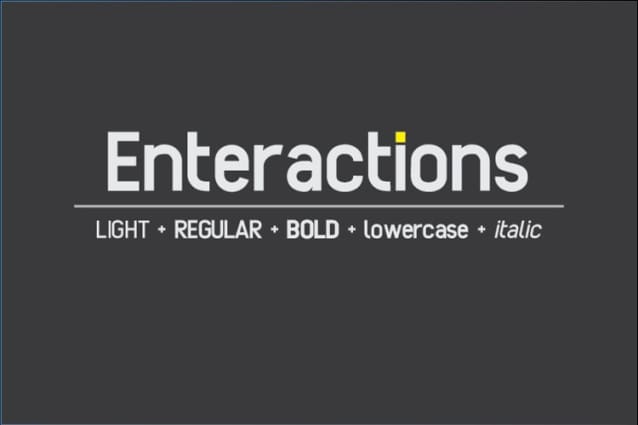
Enteractions Font
Enteractions Font, a simple and sans serif font. So perfect for you who needs a typeface for logo designs, magazine, social media, brochure, and many more.